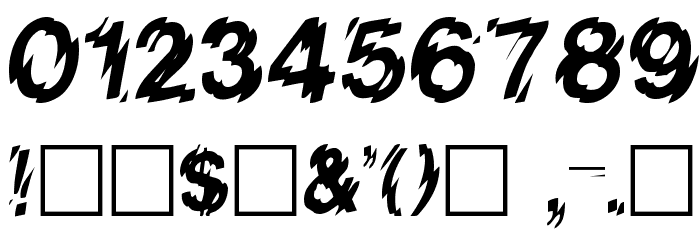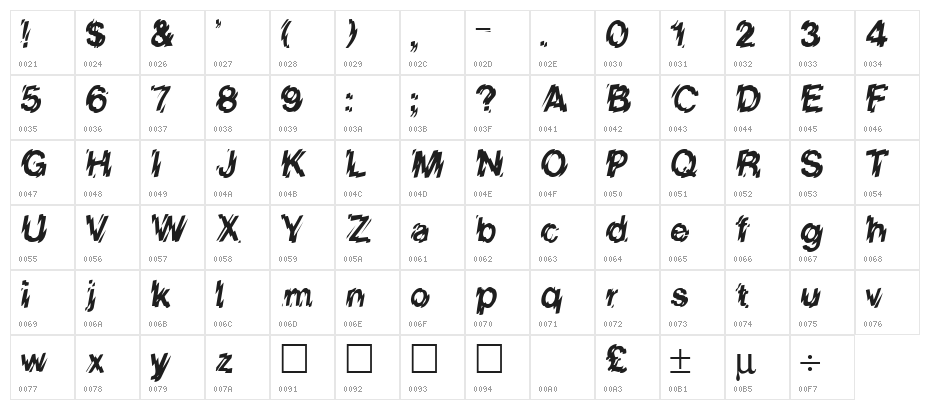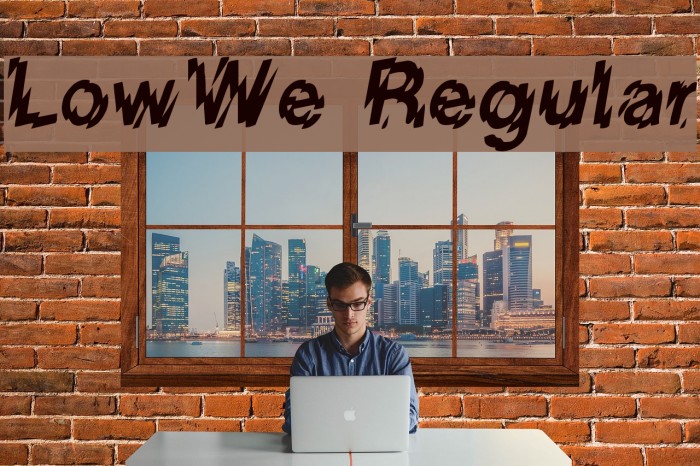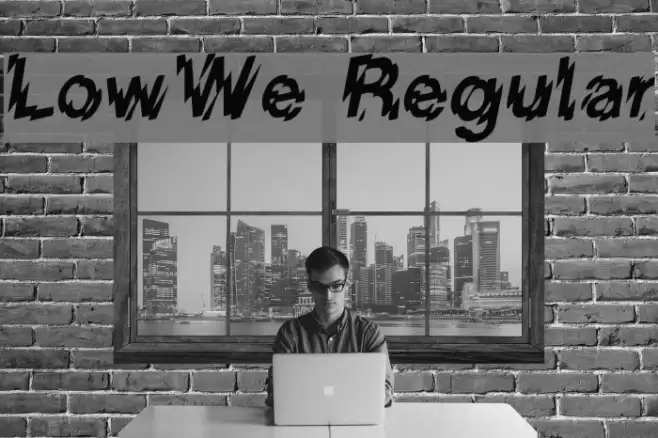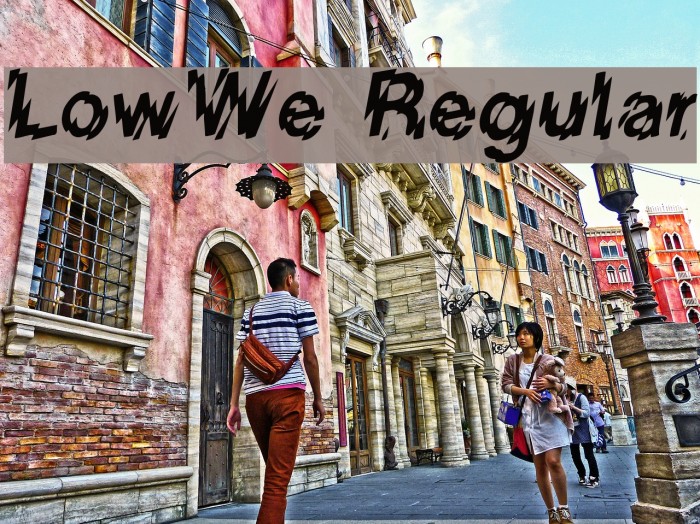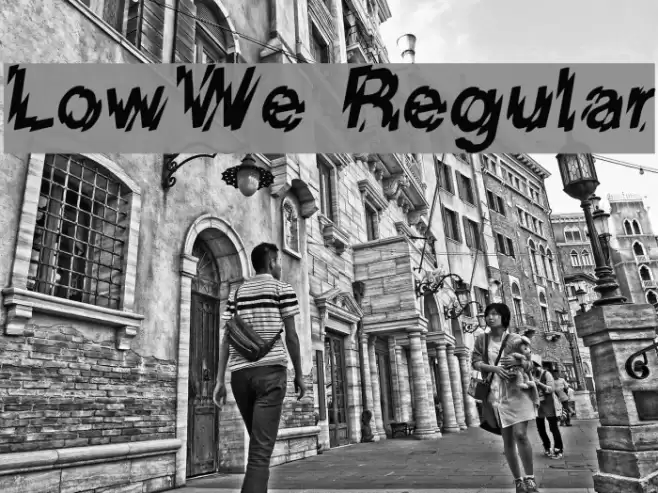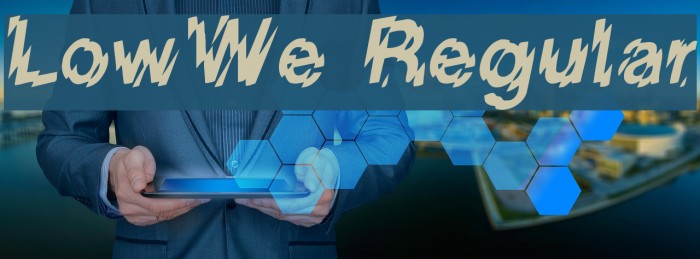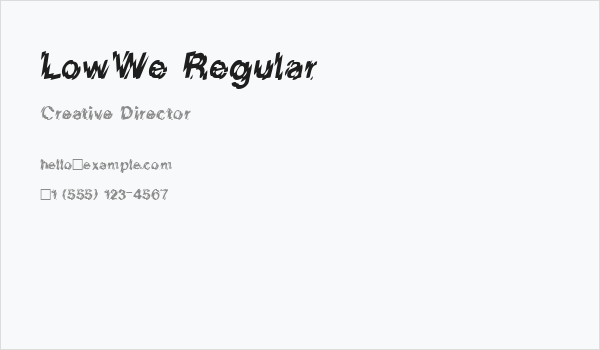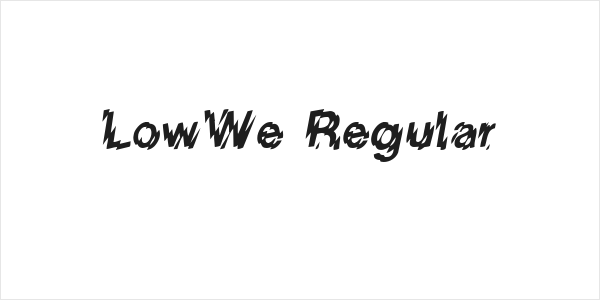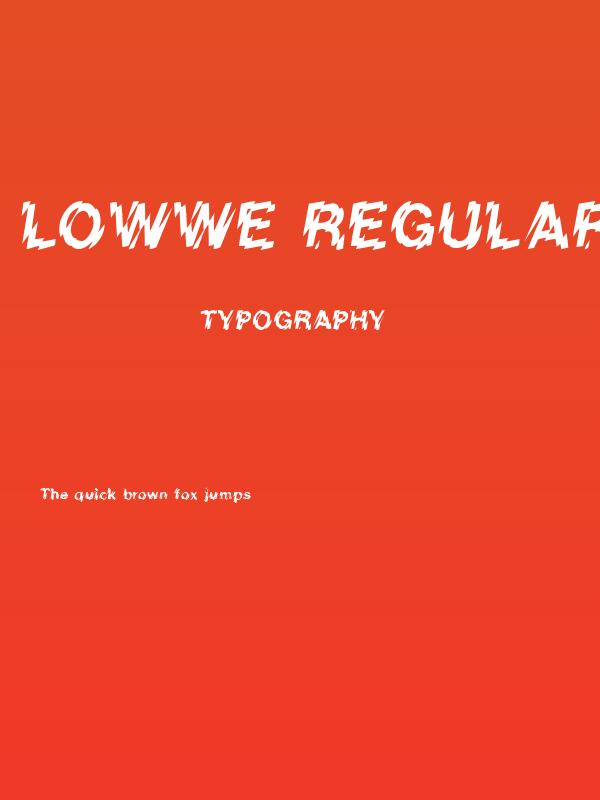
LowWe Regular Font
LowWe Regular Description
This font features a bold and dynamic style with a distinct, jagged appearance. The characters are sharply angled, giving a sense of movement and energy. The uppercase and lowercase letters maintain a consistent style, with each character exhibiting a rough, textured edge that suggests a hand-drawn or distressed effect. The numerals and special characters follow the same design principles, ensuring a cohesive look across all elements. This font's unique style makes it stand out, ideal for projects that require a strong visual impact.
| Proposed Projects | Ideal for posters, album covers, branding materials, and any design needing a bold, energetic look. |